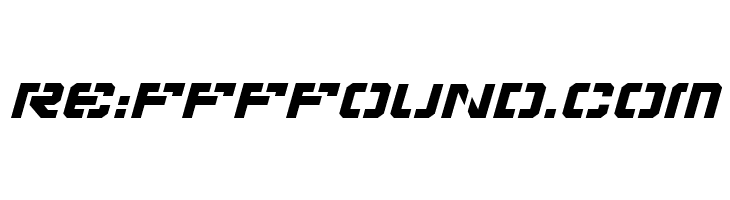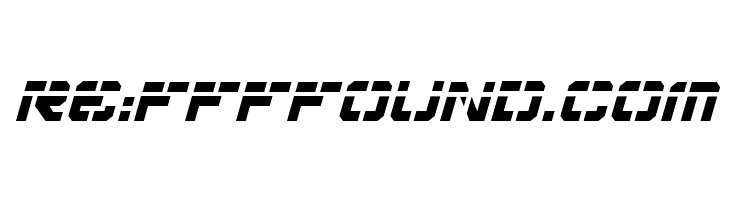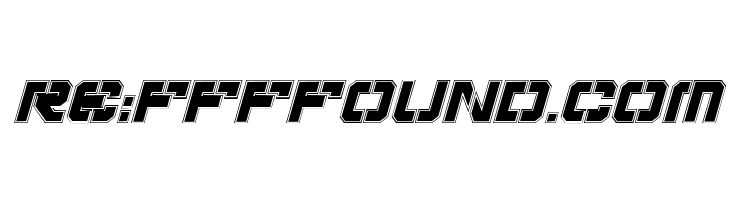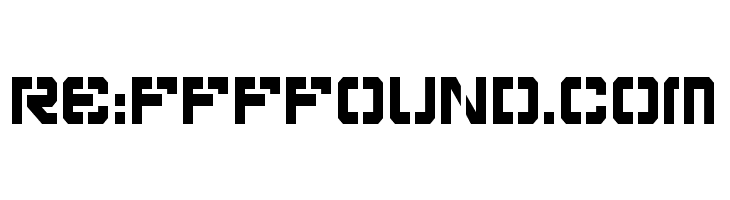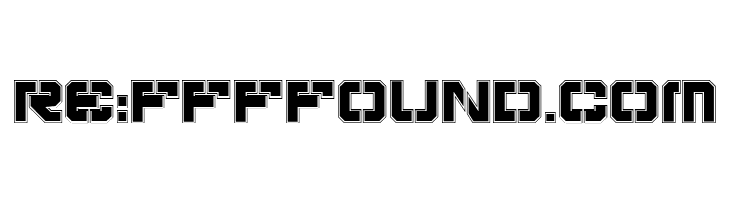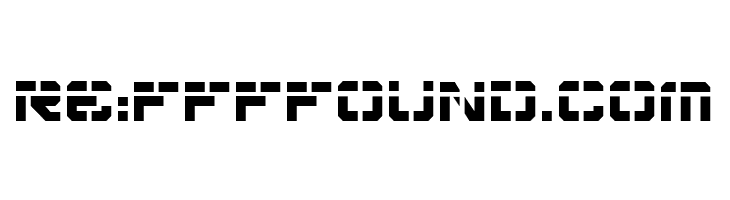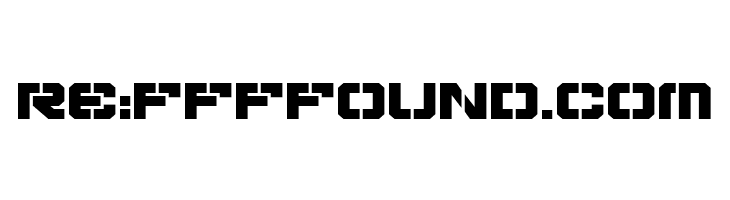
ARB 08 Extreme Roman AUG-32 CAS Normal Font
- Font: ARB 08 Extreme Roman AUG-32 CAS Normal
A bold, expanded, and italicized futuristic font with a dynamic, geometric style.
A bold, italicized font with a futuristic, geometric design.
A bold, italic, futuristic font with sharp angles and high contrast.
A bold, condensed, and italic font with a futuristic, angular design.
A bold, geometric, and condensed font with a modern, futuristic style.
A bold, geometric font with a futuristic and edgy design.
A bold, futuristic stencil font with sharp, angular cuts and geometric shapes.